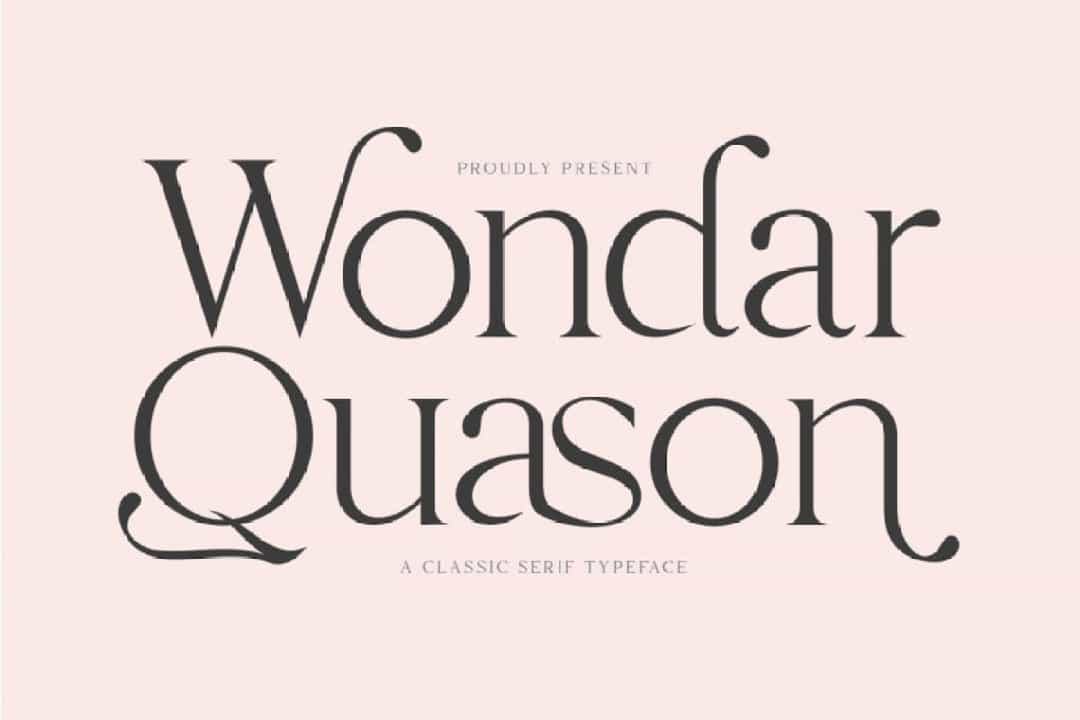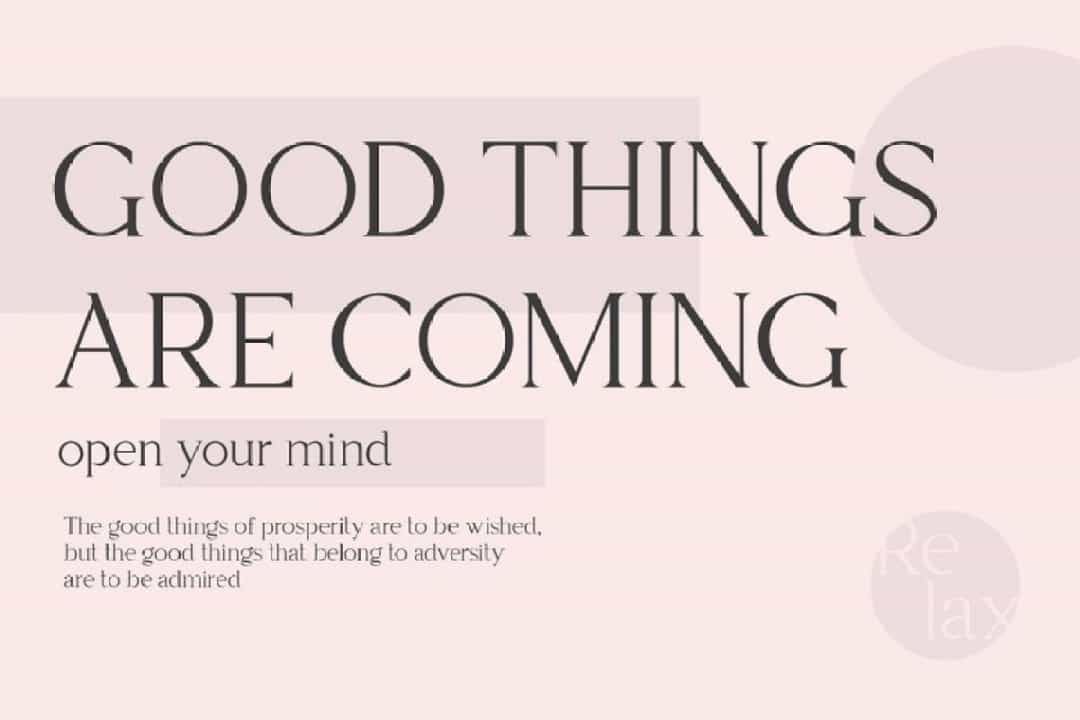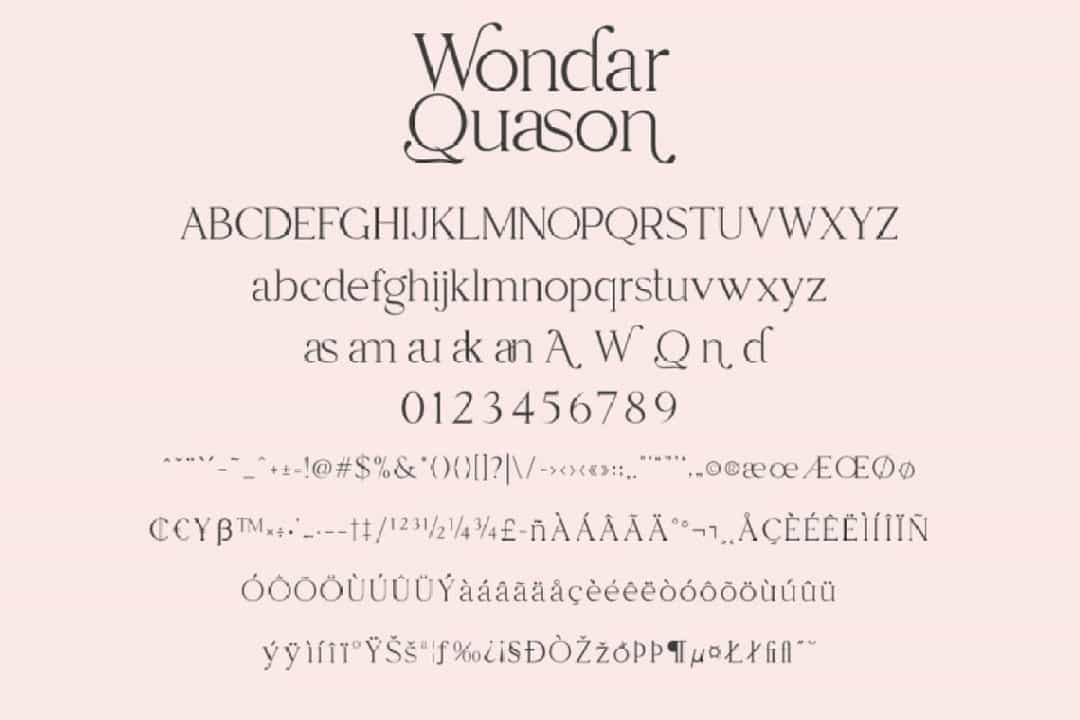
Wondar Quason is a Classic Serif Font Type. Wondar Quason is more of a Victorian handlettering where the classic and modern typography is combined with some awesome alternatives. Yes, you are correct, we are turning you into an early 1800s stylish person; we are giving you the classic look of this decade!